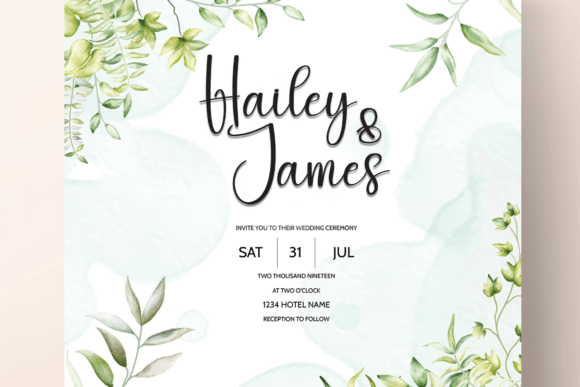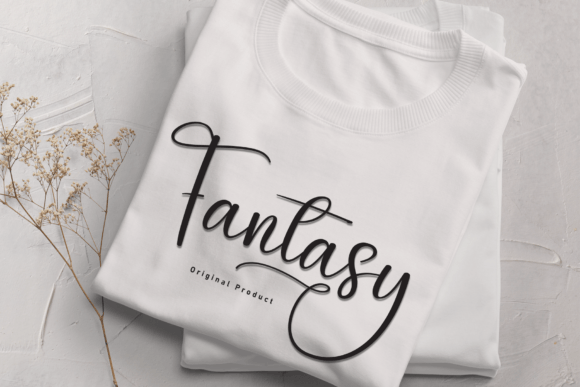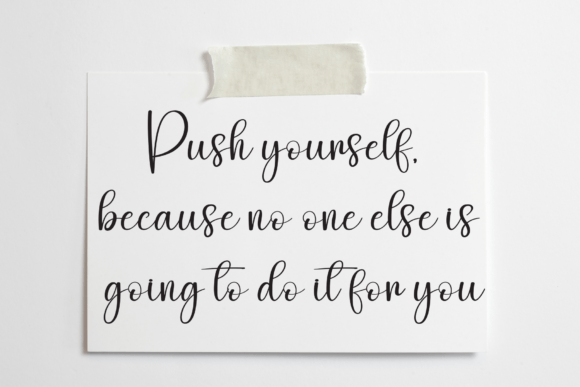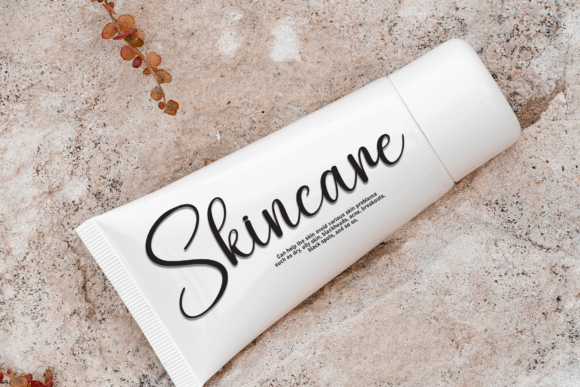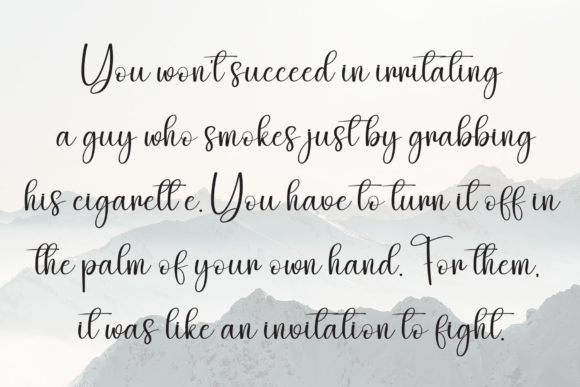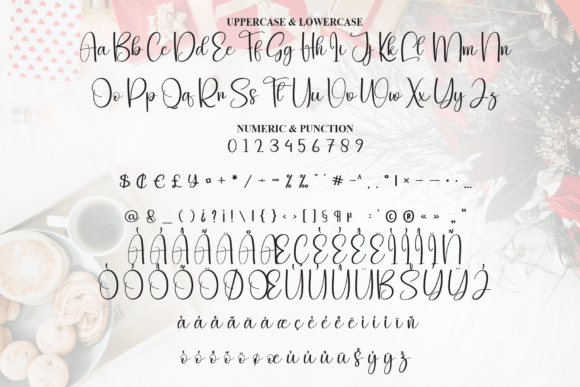
A Font that Feels Like a Warm Hug: Christmas Weekday Font
Have you ever sat at your desk, staring at a blank page, trying to come up with the perfect way to express your holiday cheer? For designers, finding the right font can make all the difference in creating a cozy and inviting atmosphere. That’s where the Christmas Weekday Font comes in – a charming handwritten font that captures the essence of a relaxing winter evening.
This unique font is designed to evoke a sense of warmth and friendliness, making it perfect for personal notes, invitations, or any project that needs a touch of holiday magic. With its soft curves and casual look, the Christmas Weekday Font is a valuable addition to any designer’s toolkit, allowing them to add a personal and festive touch to their work.
Christmas Weekday Font Key Features
- Font Family: A unique combination of festive and modern elements, perfect for adding a touch of holiday cheer to digital and print projects.
- Character Set: Includes a wide range of characters, including uppercase and lowercase letters, numbers, punctuation, and special characters.
- Unique Characteristics: Features a distinctive weekday-themed design, with each day of the week (Monday to Sunday) represented by a unique set of characters and ornaments.
Designer Review: Christmas Weekday Font
Overall, I’d say the Christmas Weekday Font is a decent, if not outstanding, choice for holiday-themed projects. Here’s what I like and dislike about it:
- The font has a clear, modern take on traditional holiday typography.
- It’s relatively easy to read, even at smaller font sizes.
- The font is highly customizable, with a range of weights and styles to choose from.
- It’s a great option for digital projects, as it looks sharp and clear on screens.
- The font feels a bit generic, and lacks a unique personality.
- Some of the characters may not be perfectly optimized for certain languages.
- The font doesn’t have a lot of flair or ornamentation, which may make it feel a bit dull for some projects.
Overall, I’d say the Christmas Weekday Font is a solid choice for projects that need a clean, modern holiday look. While it may not be the most exciting option, it gets the job done and is easy to work with.
The Christmas Weekday Font is perfect for creating festive designs for holiday-themed events, such as Christmas cards, invitations, and social media posts. To get the most out of this font, use it in combination with other festive elements, such as holly, snowflakes, and Christmas trees.
Some common use cases include:
- Christmas card designs
- Holiday-themed social media posts
- Invitations for Christmas parties